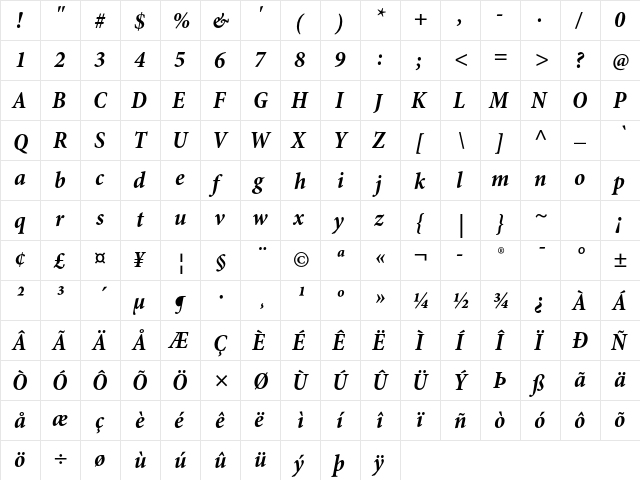
Minion Pro Bold Cond Italic Font Preview
| Designer | Robert Slimbach |
Design Context for Minion Pro Typeface
Minion Pro offers clean, dependable letterforms without strong stylistic allegiance, making it a practical choice for designers who need flexibility. The dynamic lean of this cut emphasises speed and emphasis in any layout. The heavy weight commands attention and anchors typographic hierarchies. The condensed width makes it efficient for tight spaces without sacrificing legibility.
Pro Tip: Try Minion Pro for annotation and caption copy alongside an upright companion — the contrast in angle creates a dynamic but ordered typographic system.